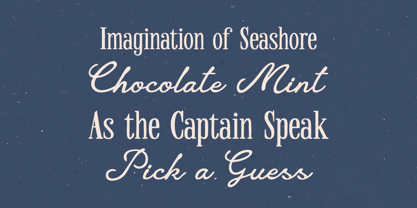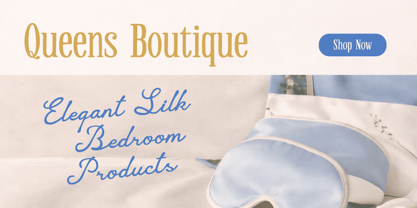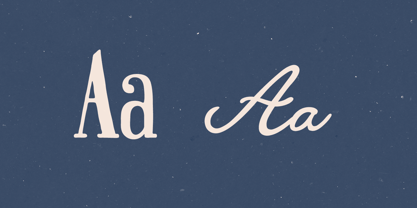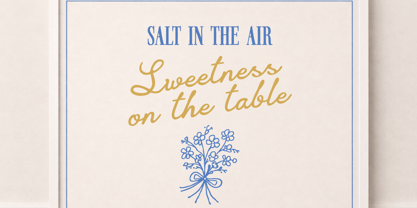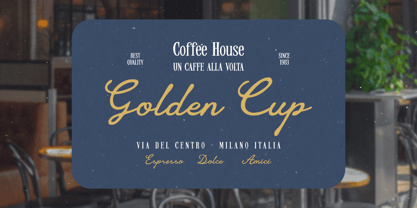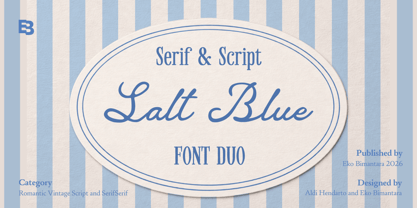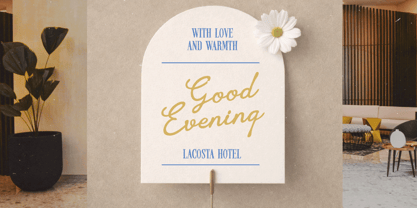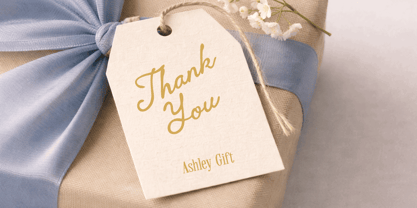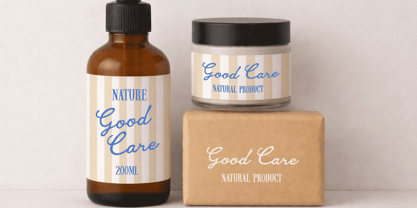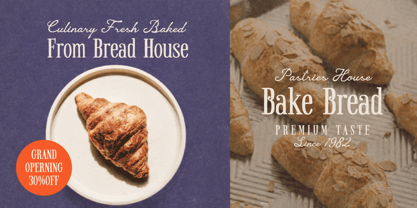
Salt Blue
by Eko Bimantara
The Salt Blue Font Family was designed by Eko Bimantara, Aldi Hendarto and published by Eko Bimantara. Salt Blue contains 2 styles and family package options. More about this family
Salt Blue is a refined serif and script font duo inspired by romantic vintage aesthetics and timeless elegance. This thoughtfully crafted pairing blends a graceful handwritten script with a clean, classic serif, creating a harmonious balance between softness and structure. The script features flowing, well-connected letterforms with smooth curves and natural rhythm, while the serif offers poised proportions and subtle character, making it ideal for complementary typography. Perfect for branding, wedding stationery, packaging, editorial layouts, websites, and upscale product design, Salt Blue delivers a nostalgic yet polished impression. Its versatile combination allows designers to create expressive headlines paired with sophisticated supporting text, bringing warmth, charm, and professionalism into every project.
Designers: Eko Bimantara, Aldi Hendarto
Foundry: Eko Bimantara